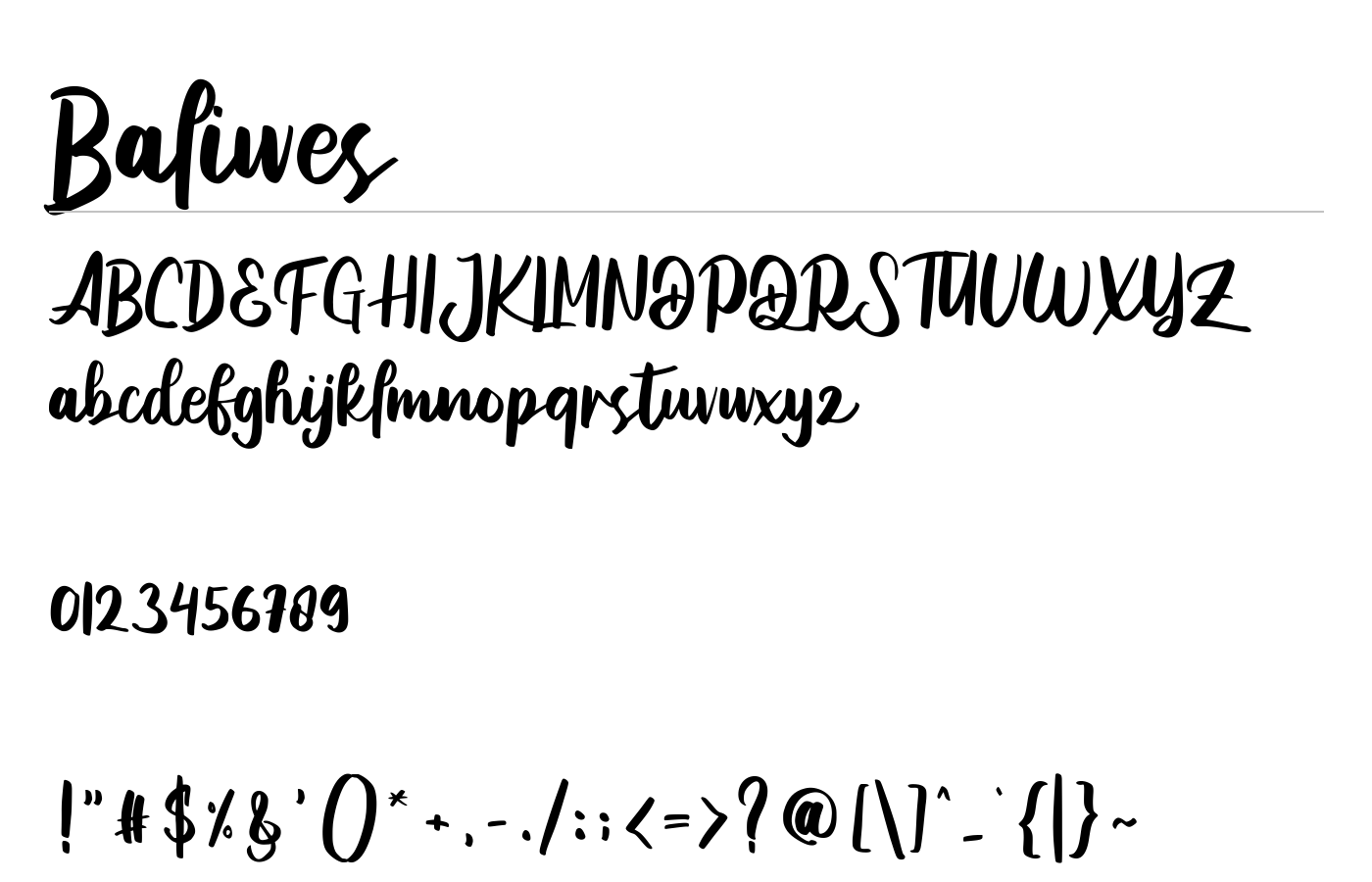
Baliwes is a playful and expressive script font with a handwritten, casual style that features smooth, fluid strokes and a friendly personality. Its moderately high x-height and consistent weight make it legible while maintaining a personal, creative feel, ideal for projects that want to convey warmth and approachability. This font works well for logos, invitations, packaging, and social media where a lively, informal touch is desired.
About Baliwes Font